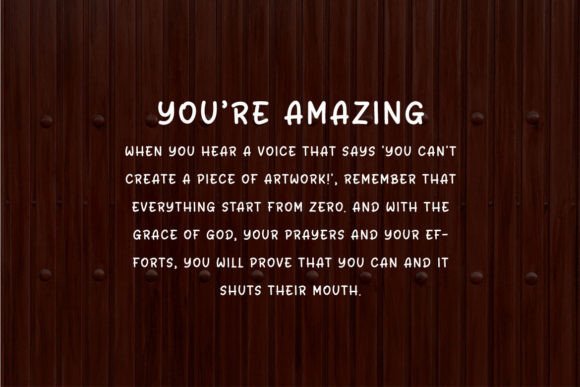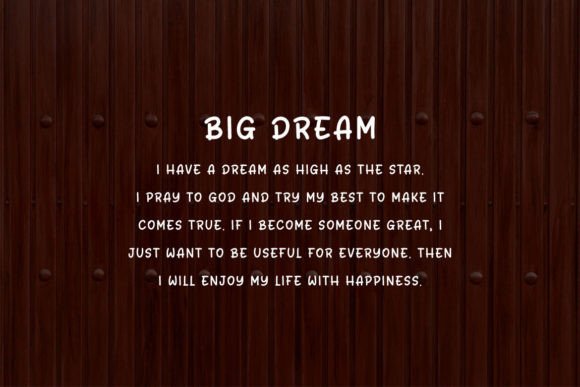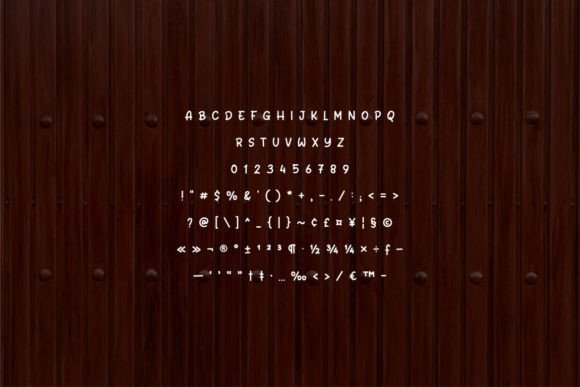
Brown Gate Font: The Ultimate Handwritten Comic Font for Designers and Crafters
Are you a designer or crafter looking for a unique and playful font to add some personality to your projects? Look no further than the Brown Gate font! This handwritten comic font is perfect for a wide range of applications, from comic books and posters to school projects and social media content.
What is Brown Gate Font?
Brown Gate is a carefully crafted handwritten font that is designed to give your text a fun and playful look. With its comic book-inspired style, this font is sure to grab attention and add a touch of whimsy to any project. Whether you’re creating a logo, book title, or advertisement, Brown Gate is the perfect choice.
Key Features of Brown Gate Font
- Handwritten style: Brown Gate has a unique, handwritten look that sets it apart from other fonts.
- Comic book-inspired: This font is perfect for comic book enthusiasts and anyone who loves the playful style of comic books.
- Versatile: Brown Gate can be used in a wide range of applications, from digital projects to print materials.
- Easy to read: Despite its playful style, Brown Gate is easy to read and understand, making it perfect for body text and headings.
Uses of Brown Gate Font
Brown Gate is a versatile font that can be used in a wide range of projects, including:
- Comic books: Create comic books, graphic novels, and other illustrated stories with a unique and playful font.
- Posters and flyers: Add some personality to your posters and flyers with Brown Gate’s comic book-inspired style.
- School projects: Use Brown Gate to create eye-catching school projects, such as book reports, presentations, and posters.
- Social media content: Add some fun and personality to your social media content, such as Instagram posts, Facebook updates, and Twitter tweets.
- Logos and branding: Create unique and memorable logos and branding materials with Brown Gate’s playful style.
- Advertisements: Use Brown Gate to create eye-catching advertisements, such as billboards, magazine ads, and online ads.
Benefits of Using Brown Gate Font
There are many benefits to using Brown Gate font in your projects, including:
- Unique style: Brown Gate has a unique and playful style that sets it apart from other fonts.
- Attention-grabbing: This font is sure to grab attention and add a touch of whimsy to any project.
Tips for Using Brown Gate Font
Here are some tips for getting the most out of Brown Gate font:
- Use it sparingly: Brown Gate is a bold font, so use it sparingly to add emphasis to your text.
- Pair it with other fonts: Brown Gate pairs well with other fonts, such as sans-serif fonts and script fonts.
- Experiment with colors: Brown Gate looks great in a variety of colors, so experiment with different colors to find the one that works best for your project.